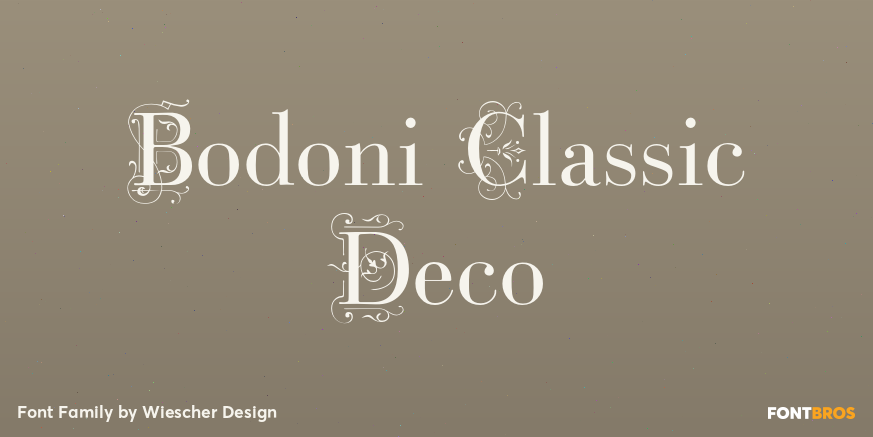
Bodoni Classic Deco
About Bodoni Classic Deco
Bodoni Classic Deco is against all rules. Giambattista Bodoni himself would probably hate me for doing it; he was a real purist. The whole idea of the Bodoni typeface is no embellishments and here I go and decorate those nice clear letters. Shame on…